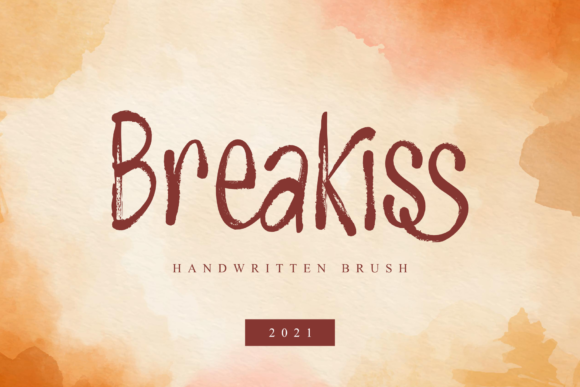
Introducing Breakiss Font: The Sweet, Brushed Handwritten Font for All Your Creative Needs
Are you a designer, crafter, or digital artist looking for the perfect font to add a personal touch to your projects? Look no further than Breakiss Font, a sweet, brushed handwritten font that’s perfect for a variety of creative applications. In this article, we’ll take a closer look at Breakiss Font, its features, and how you can use it to elevate your designs.
What is Breakiss Font?
Breakiss Font is a beautiful, handwritten font that’s designed to give your projects a personal and unique touch. With its sweet, brushed strokes, this font is perfect for creating a wide range of designs, from digital graphics and presentations to greeting cards and craft projects.
Key Features of Breakiss Font
- Handwritten style: Breakiss Font has a beautiful, handwritten style that’s perfect for adding a personal touch to your designs.
- Brushed strokes: The font features brushed strokes that give it a unique, textured look.
- Versatile: Breakiss Font is perfect for a wide range of creative applications, including digital designing, crafting, presentations, and greeting cards making.
Uses for Breakiss Font
Breakiss Font is a versatile font that can be used for a wide range of creative projects. Here are some ideas to get you started:
- Digital designing: Use Breakiss Font to create stunning digital graphics, social media posts, and website headers.
- Crafting: Add a personal touch to your craft projects, such as scrapbooking, card making, and journaling.
- Presentations: Use Breakiss Font to create engaging and professional-looking presentations for work or school.
- Greeting cards making: Create beautiful, handmade greeting cards for special occasions.
Why Choose Breakiss Font?
So why choose Breakiss Font for your creative projects? Here are just a few reasons:
- Unique style: Breakiss Font has a unique, handwritten style that’s sure to make your designs stand out.
- Versatile: Breakiss Font can be used for a wide range of creative applications, making it a great addition to your font library.
In conclusion, Breakiss Font is a sweet, brushed handwritten font that’s perfect for a wide range of creative applications. With its unique style, versatility, and ease of use, it’s a great addition to any designer’s or crafter’s font library. Whether you’re creating digital graphics, crafting, or making greeting cards, Breakiss Font is sure to add a personal touch to your projects.